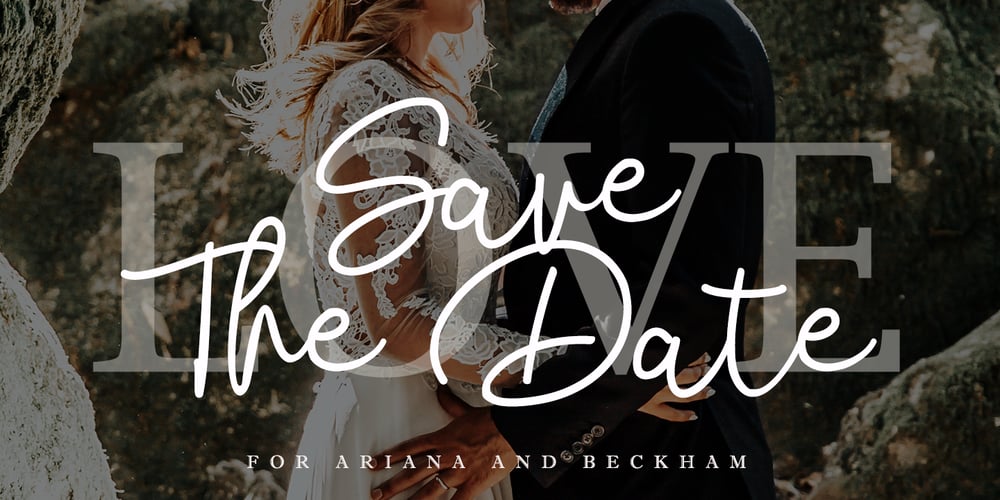
Bendina Sambat
Bendina Sambat font
Bendina Sambat Font Family was designed by Alde Saputro and published by Aldedesign. Bendina Sambat contains 2 styles and family package options. Bendina Sambat features an incredibly sophisticated and classy feel. Use it to turn any design project into a true standout!